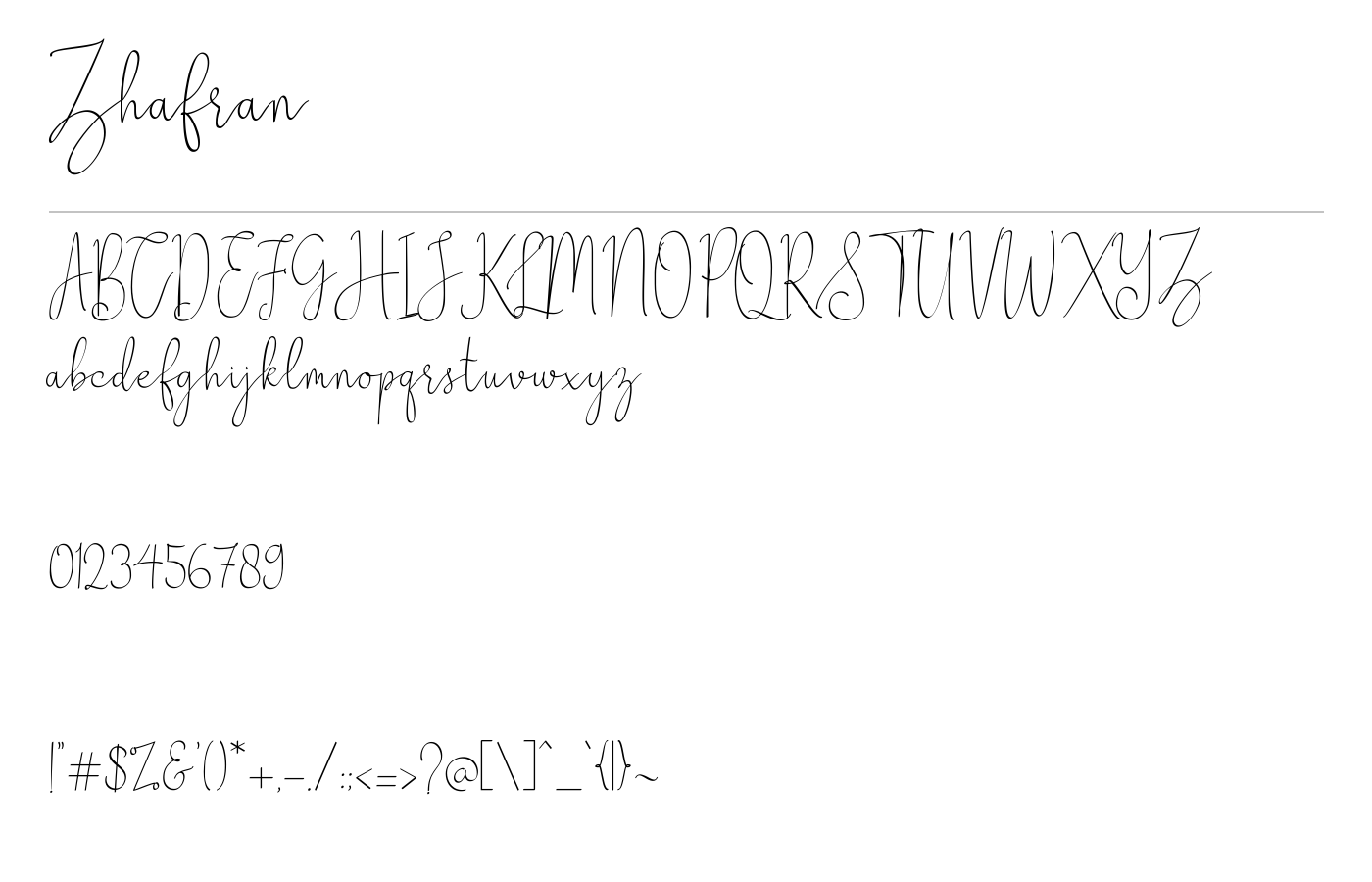
Zhafran is an elegant script font featuring delicate, thin strokes with a handwritten, casual flair. Its tall, slender letterforms and whimsical curves make it perfect for feminine, romantic, or artistic designs. This font works beautifully for wedding invitations, branding, and stylish editorial projects where a personal, graceful touch is desired.
Zhafran Font
About Zhafran Font